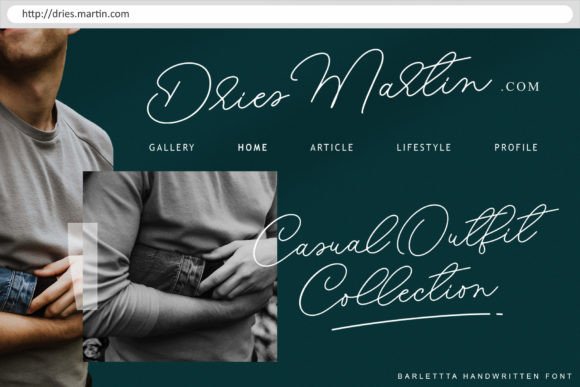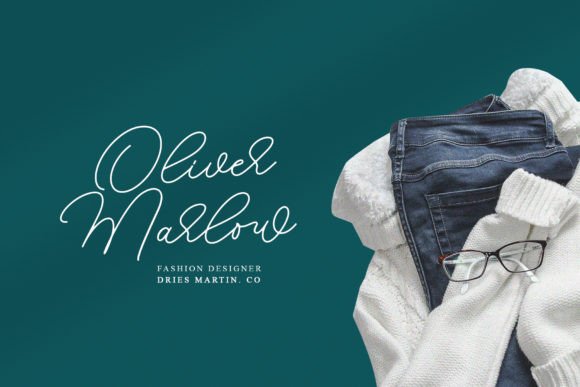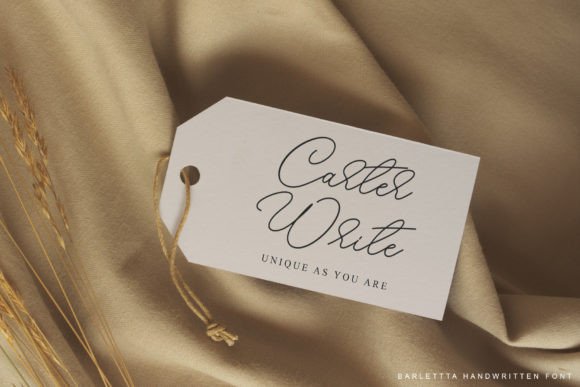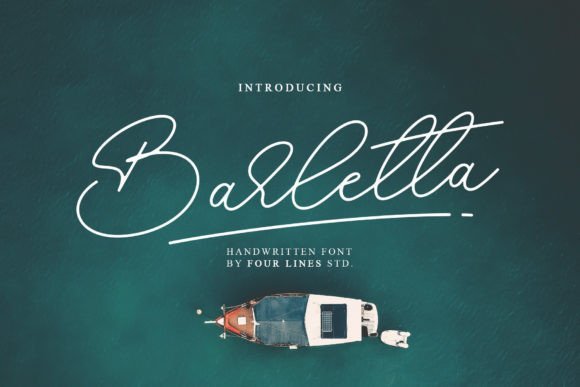
Introduction to Barletta Font
Barletta is a handwritten font that’s easy to read and simple.
It’s perfect for greeting cards, wedding invitations, headers, social media, and more This font is PUA encoded which means you can access all of the glyphs and ligatures with ease.
Key Features of Barletta Font
Why Choose Barletta Font?